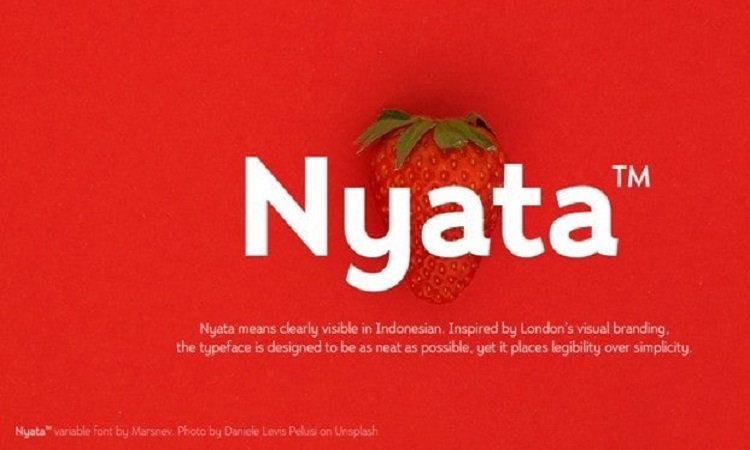
Nyata Sans Serif Font
Nyata Sans Serif Font is a sans serif family built in calligraphic structure. It consists of 19 styles including 9 weights and italics. It is a sans serif font from the designer Marsnev. Nyata Font means clearly visible in Indonesian.
The typeface is designed to be clean, unique, and legible. It is a great combination for any display requiring high legibility, such as city’s way finder.